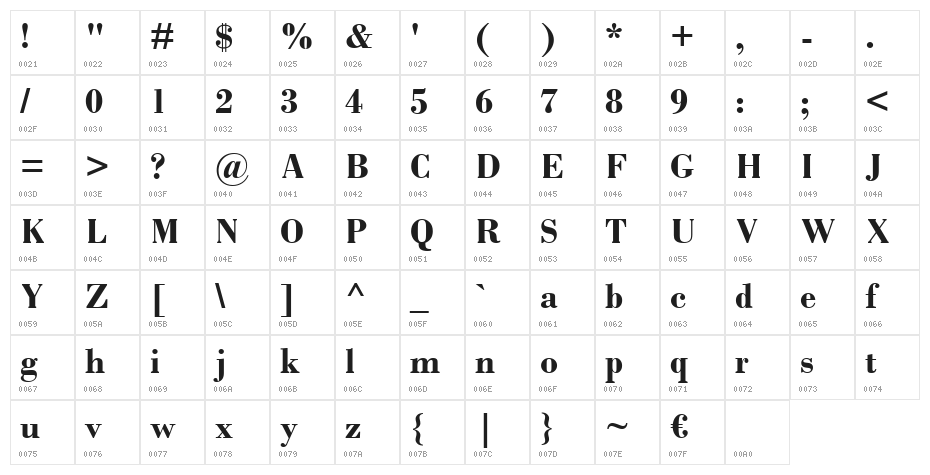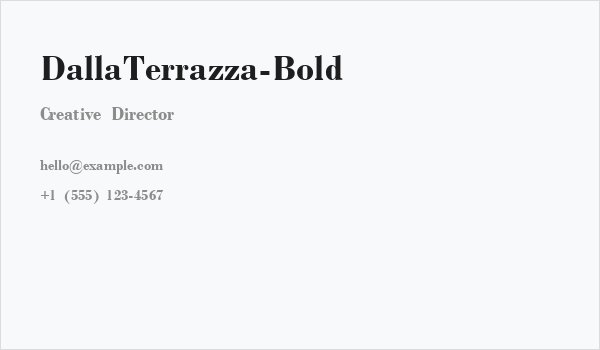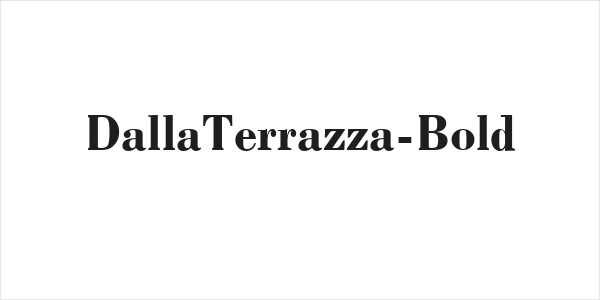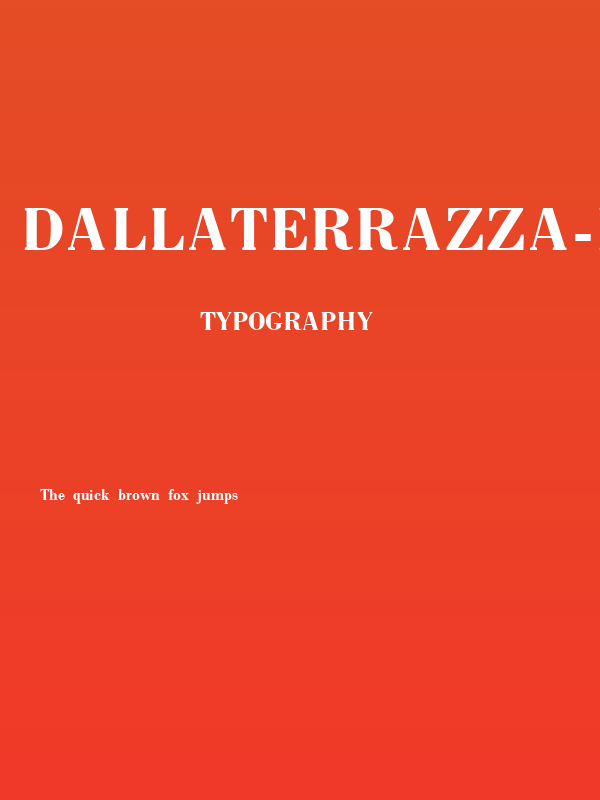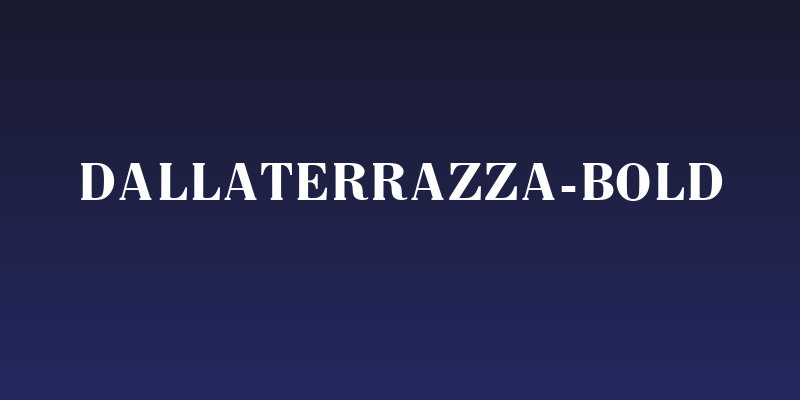
DallaTerrazza-Bold Font
DallaTerrazza-Bold Description
This font features a bold and commanding presence with its strong, thick strokes and high contrast between thick and thin lines. The serifs are pronounced, adding a touch of elegance and tradition to the overall design. The uppercase letters are tall and imposing, while the lowercase letters maintain a balanced and harmonious appearance. The numerals are clear and easily readable, making them suitable for various applications. Special characters are distinct and well-defined, ensuring versatility in usage. The overall style is classic yet modern, making it suitable for a wide range of design projects.
| Proposed Projects | Ideal for headlines, editorial design, branding, and logo creation. |